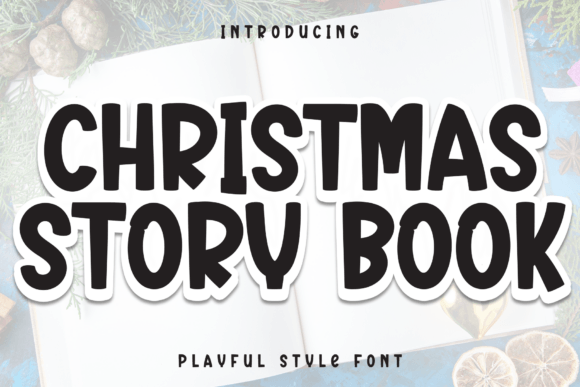
Christmas Story Book Font: Spreading Holiday Cheer with a Touch of Whimsy
The holiday season is upon us, and with it comes the joy of creating festive and fun designs that capture the magic of Christmas. One of the most important elements in creating these designs is the font used to convey the holiday cheer. This is where the “Christmas Story Book Font” comes in – a fun and cheerful font that’s perfect for adding a touch of whimsy to any Christmas project.
What is Christmas Story Book Font?
“Christmas Story Book” is a playful and friendly font designed specifically for the holiday season. Its unique and cheerful design makes it ideal for use in Christmas stories, cards, and festive decorations. The font’s friendly letters bring a joyful spirit to your designs, perfect for spreading holiday cheer to family, friends, and loved ones.
Key Features of Christmas Story Book Font
- Playful Design: The font’s playful design adds a touch of whimsy to any Christmas project, making it perfect for creating festive and fun designs.
- Cheerful Letters: The friendly letters bring a joyful spirit to your designs, perfect for spreading holiday cheer.
- Versatile: The font is versatile and can be used in a variety of Christmas projects, including stories, cards, and festive decorations.
- Easy to Read: The font is easy to read, making it perfect for use in stories and other written materials.
Ideas for Using Christmas Story Book Font
The “Christmas Story Book” font is perfect for a variety of Christmas projects, including:
- Christmas Cards: Use the font to create festive and fun Christmas cards for family and friends.
- Holiday Stories: Use the font to create engaging and fun holiday stories for kids.
- Festive Decorations: Use the font to create festive decorations, such as holiday banners and signs.
- Social Media Posts: Use the font to create fun and festive social media posts for the holiday season.
Design Tips for Using Christmas Story Book Font
Here are some design tips for using the “Christmas Story Book” font:
- Pair with Other Fonts: Pair the font with other festive fonts to create a unique and fun design.
- Use Bright Colors: Use bright and festive colors to bring the font to life.
- Add Graphics: Add festive graphics, such as holly and snowflakes, to enhance the design.
- Experiment with Sizes: Experiment with different font sizes to create a visually appealing design.
The “Christmas Story Book” font is a fun and cheerful font that’s perfect for capturing the magic of the holiday season. Its playful design and friendly letters bring a joyful spirit to any Christmas project, making it ideal for spreading holiday cheer. With its versatility and ease of use, this font is sure to become a favorite among designers and crafters.